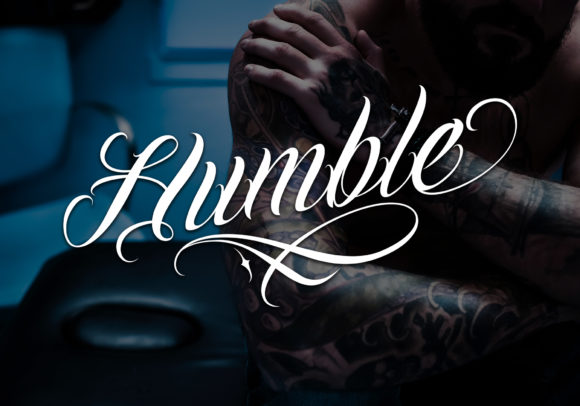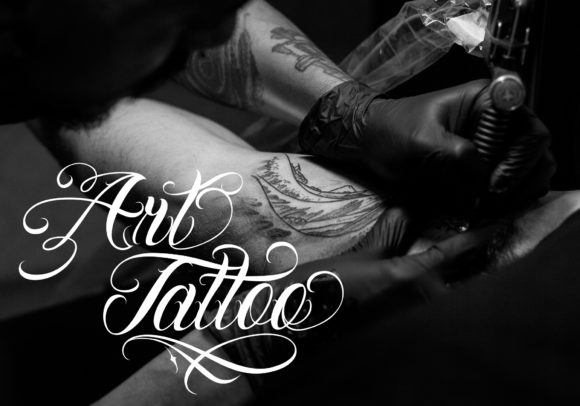
Chicano Font
db-ku.com - Script & Handwritten -- Inspired by classic tattoos, Chicano is a unique and powerful handwritten font with a bold twist. It will turn any design project into a stand out.